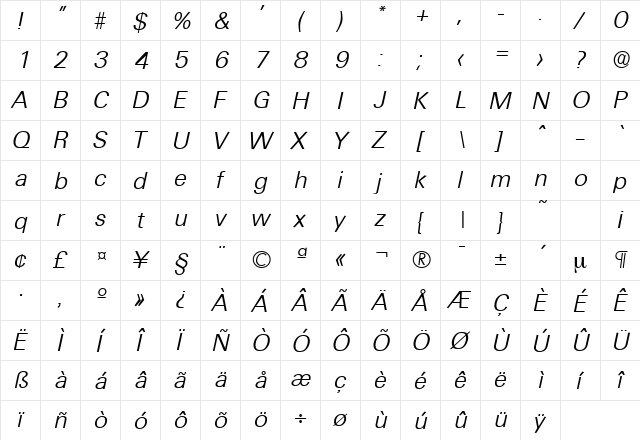
Ultimate-Serial-Light RegularItalic Font Preview
Design Context for Ultimate-Serial-Light Typeface
Ultimate-Serial-Light offers clean, dependable letterforms without strong stylistic allegiance, making it a practical choice for designers who need flexibility. The dynamic lean of this cut emphasises speed and emphasis in any layout. Its slender proportions lend an understated elegance to any composition.
Pro Tip: Try Ultimate-Serial-Light for annotation and caption copy alongside an upright companion — the contrast in angle creates a dynamic but ordered typographic system.